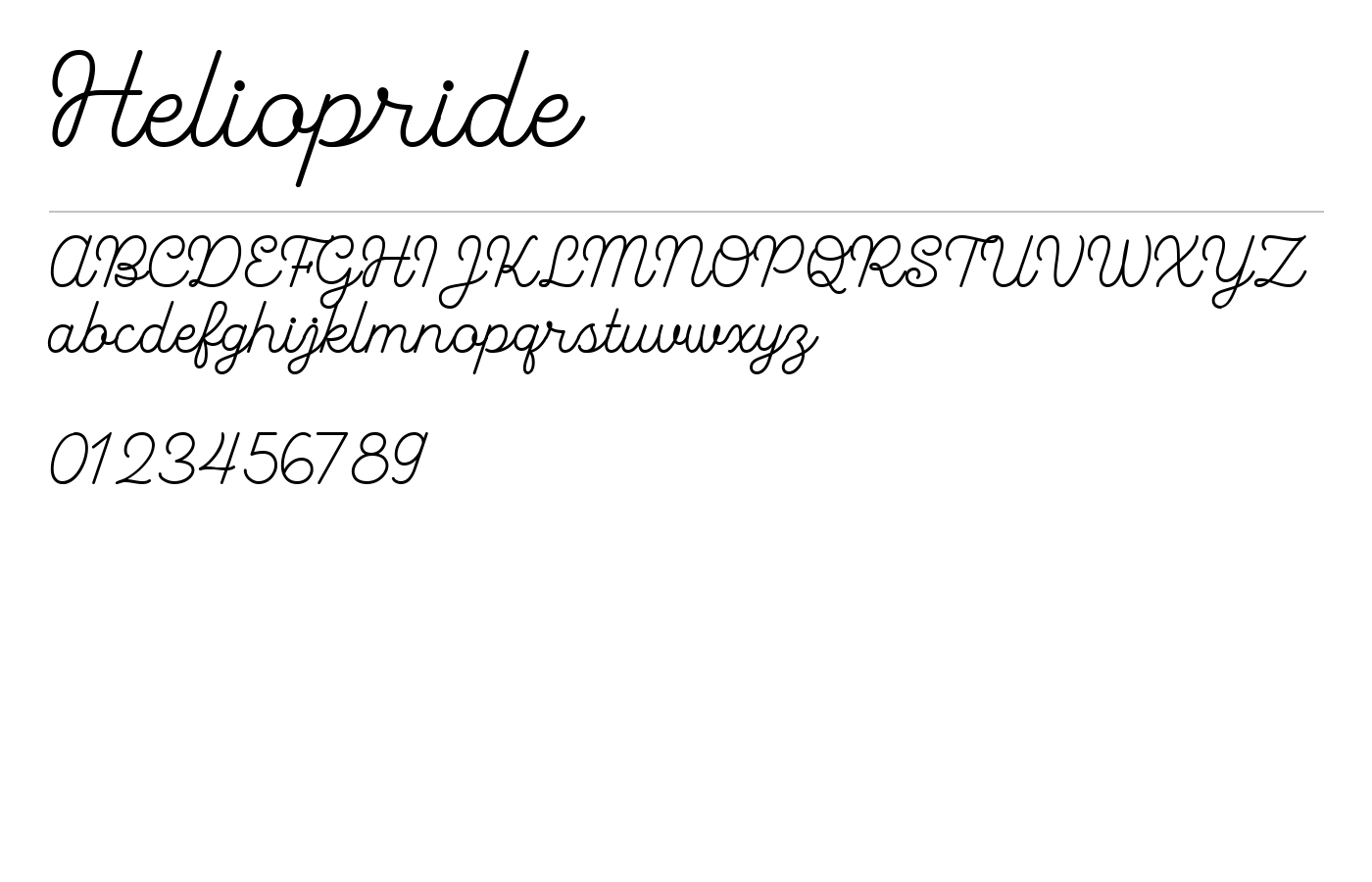
Heliopride is a delicate and elegant script font with a light weight and smooth, flowing strokes that evoke a handwritten feel. Its slender letterforms and slightly slanted style make it perfect for adding a touch of sophistication and personality to invitations, branding, and editorial designs. This font works best where a graceful, feminine aesthetic is desired, especially in fashion, beauty, and lifestyle projects.
Heliopride Font
About Heliopride Font
| Font family | Heliopride Font |
| Designer | Tezar Tantular |